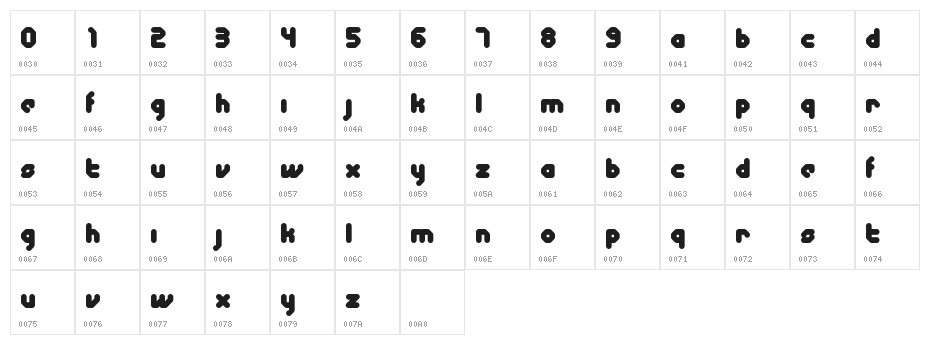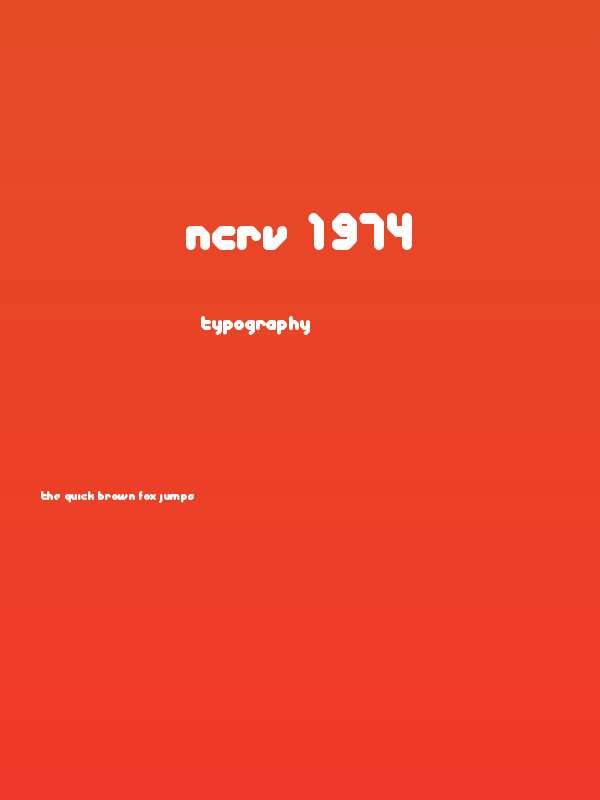
NCRV 1974 Font
NCRV 1974 Description
This font features a bold and rounded style with a geometric and futuristic appearance. The characters are uniformly thick, creating a strong visual impact. The rounded edges and consistent stroke width give it a playful yet modern feel. The numbers and letters are easily distinguishable, making it suitable for various design purposes. The font's unique style is characterized by its boldness and smooth curves, which add a touch of modernity and creativity to any project.
| Proposed Projects | Ideal for branding, posters, headlines, and digital media where a modern and bold statement is needed. |